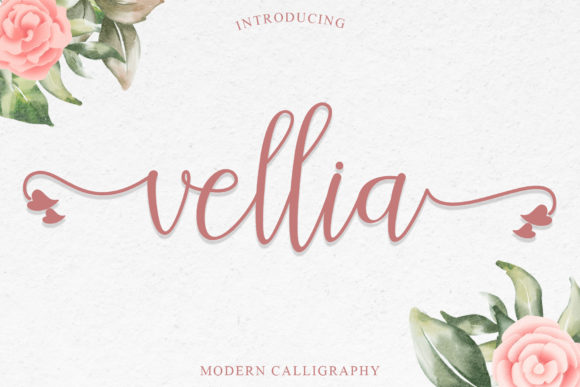
About Vellia Font
Vellia is a smooth and romantic handwritten font. It is also PUA encoded which means you can access all of the glyphs and swashes with ease!
Featuring characters that dance along the baseline, this font will add a luxury spark to any design project that you wish to create!